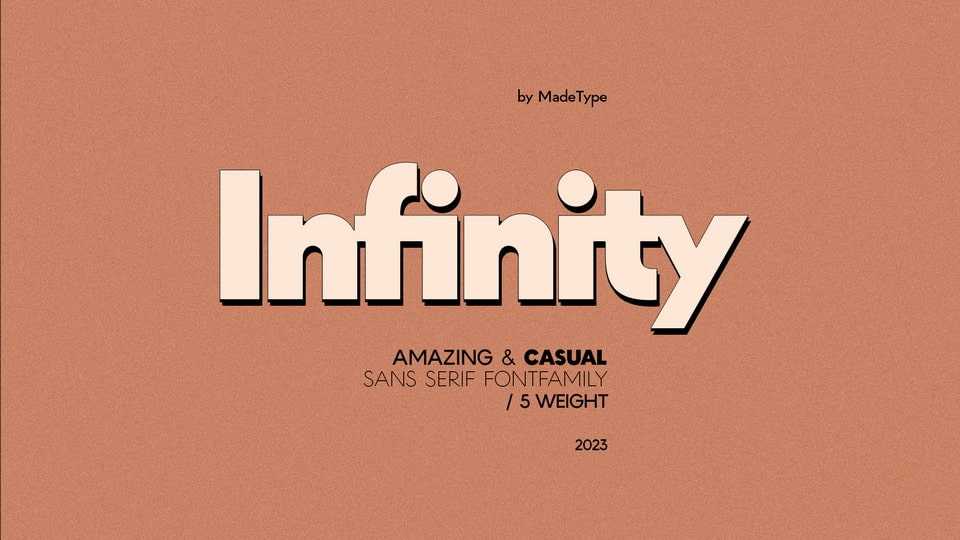
MADE Infinity Font Family › Fontesk – Fonte Grátis
Download MADE Infinity font, a new casual classic sans serif typeface. Perfectly suited for graphic design and any display use, MADE Infinity font could easily work for web, signage, logo as well as for editorial design.
Designer: Made Type